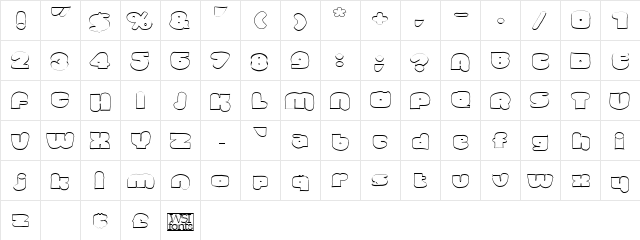
Vinsome Regular
Design Context for Vinsome Typeface
Vinsome is a composed and adaptable typeface that performs quietly and consistently across a wide range of design contexts.